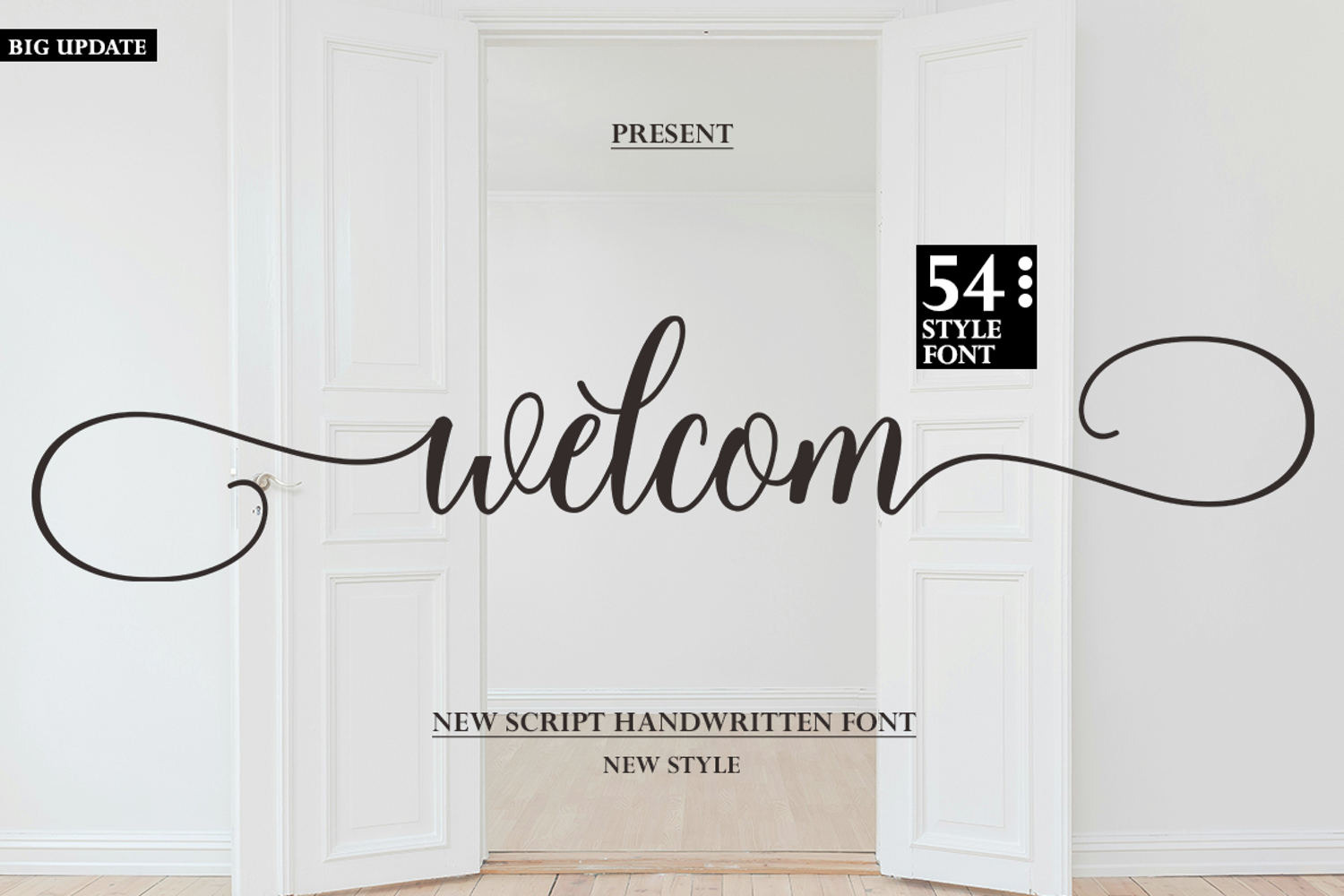
Welcom Update Family Font in 54 Style
Welcom Update 54 Font
Welcom is a stylish and incredibly elegant handwritten font. It looks stunning on wedding invitations, thank you cards, quotes, greeting cards, logos, business cards, and every other design which needs a handwritten touch.